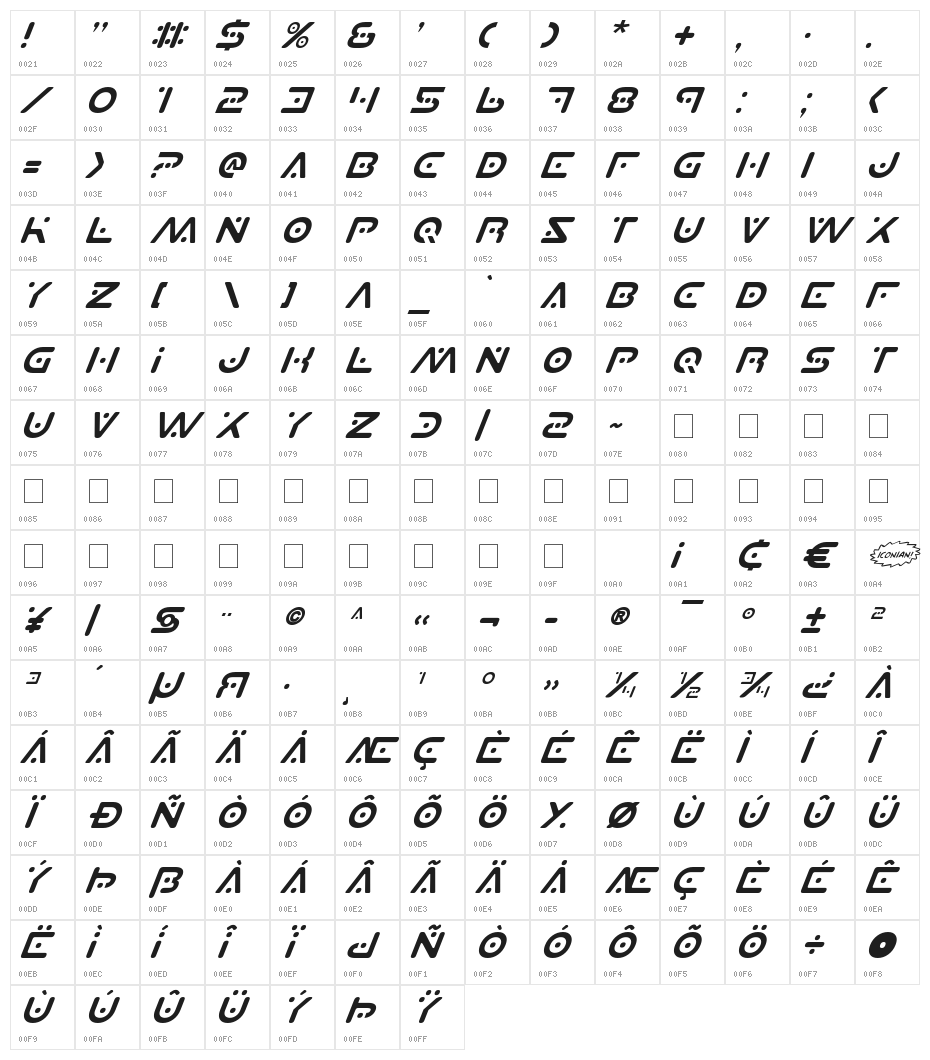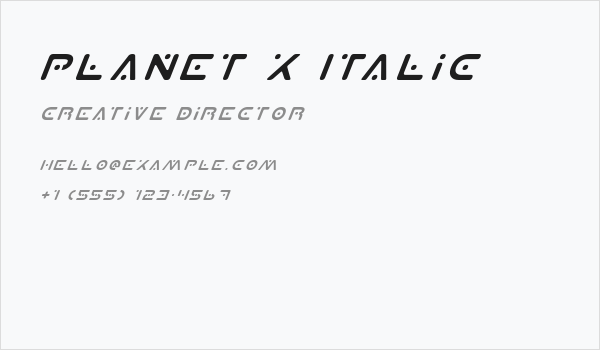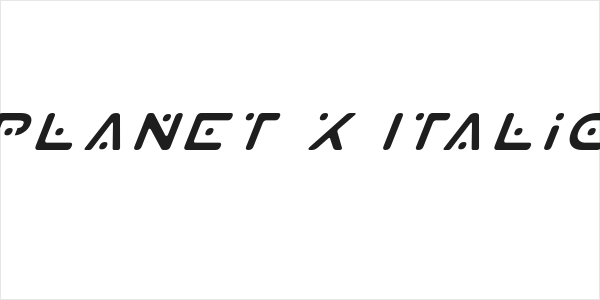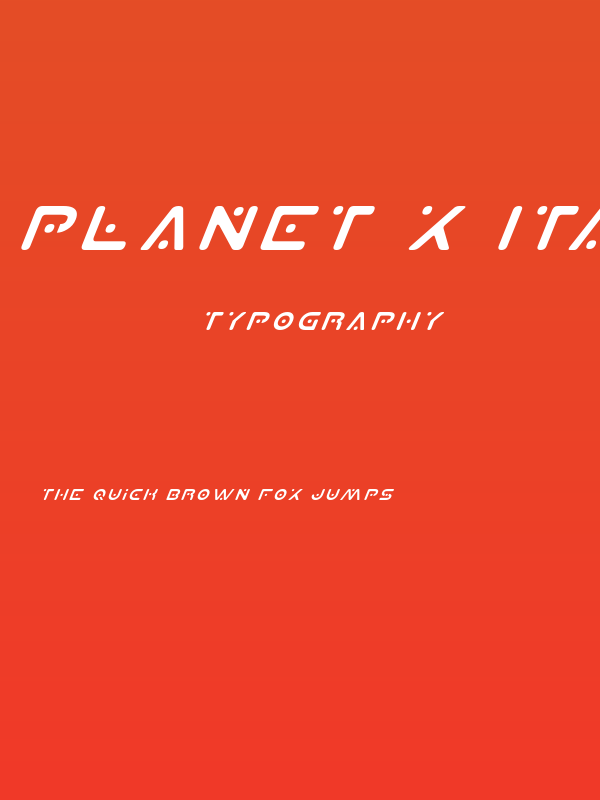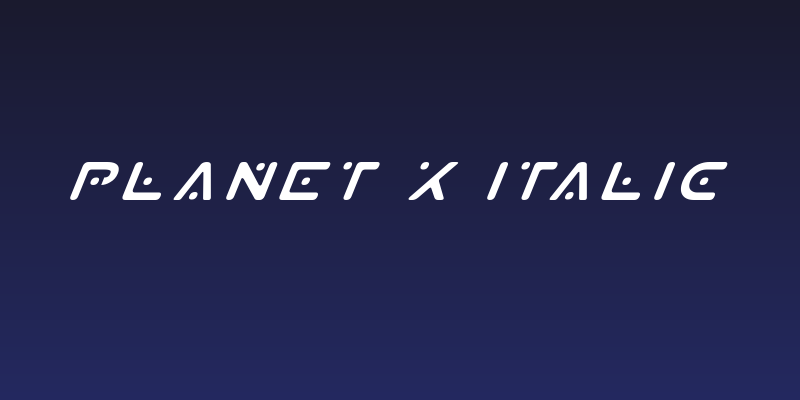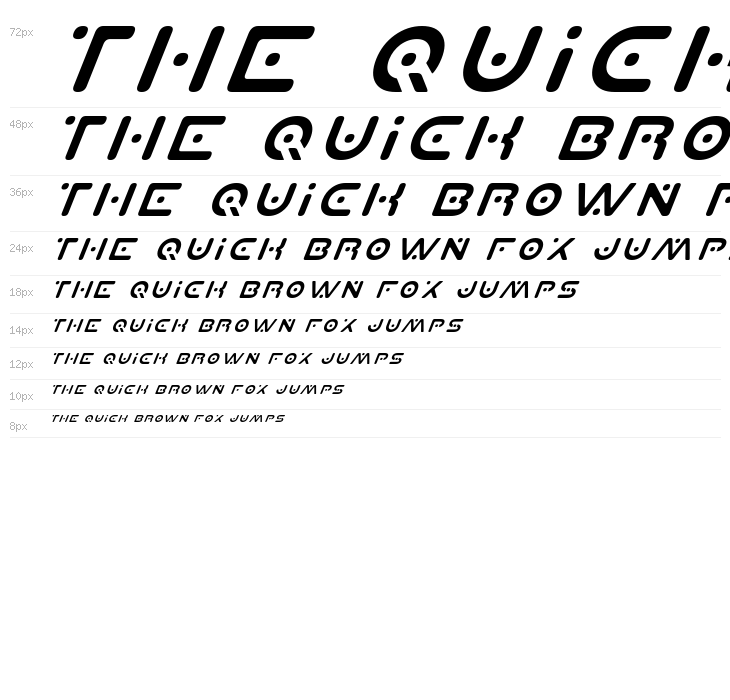
Planet X Italic Font
Planet X Italic Description
This font features a futuristic and dynamic design, characterized by its italicized and slanted letterforms. The geometric shapes and sharp angles give it a modern and sleek appearance, while the consistent stroke width maintains readability. The unique cutouts and curves within the characters add a distinctive touch, making it stand out. The font includes both uppercase and lowercase letters, numerals, and a variety of special characters, all designed with a cohesive style that emphasizes movement and speed.
| Proposed Projects | Ideal for sci-fi themed projects, tech branding, video game titles, and futuristic posters. |